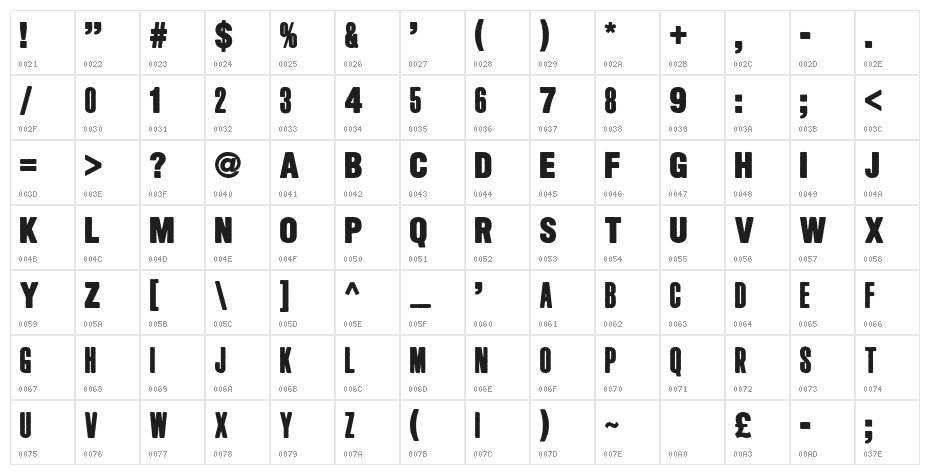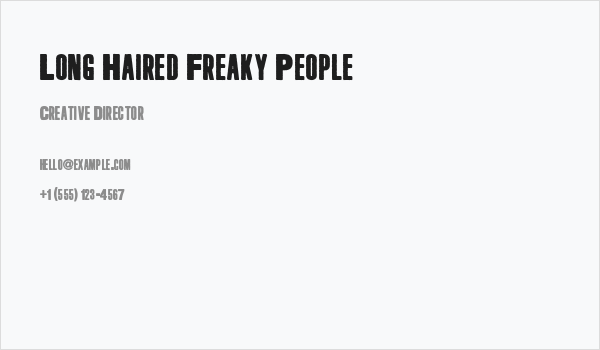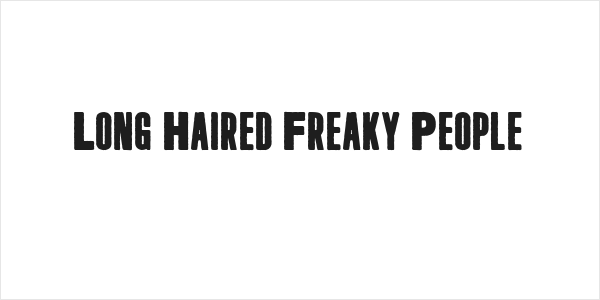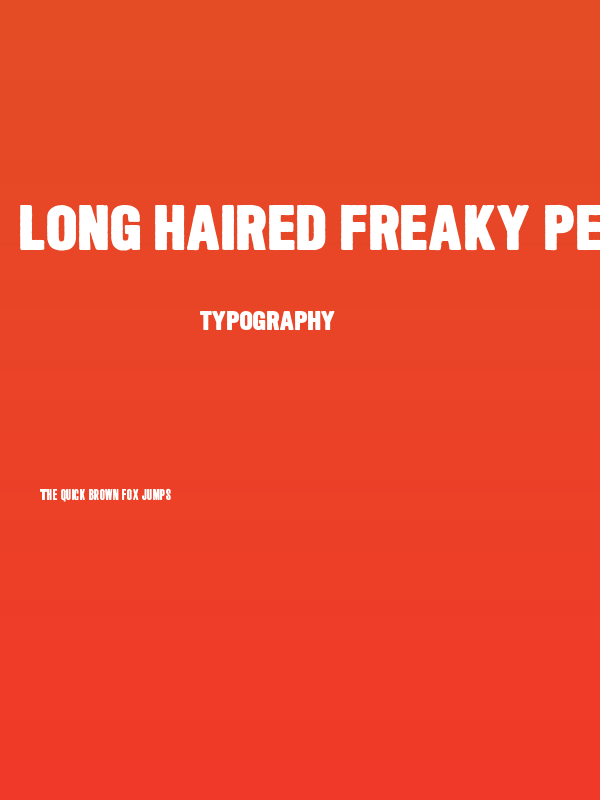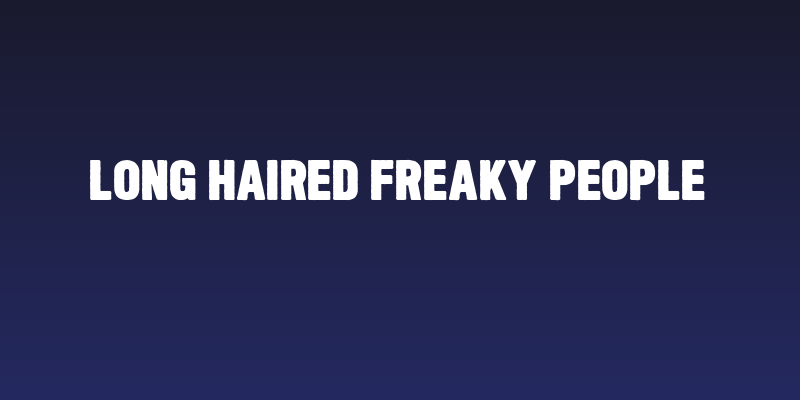
Long Haired Freaky People Font
Long Haired Freaky People Description
This font features a bold and impactful design with a strong presence, making it ideal for attention-grabbing headlines and titles. The characters are thick and robust, with a slightly distressed texture that adds a vintage or grunge feel. The uppercase letters are uniform in height, while the lowercase letters maintain a consistent style, complementing the uppercase set. Numbers and special characters are equally bold, ensuring they stand out in any design. The overall appearance is rugged and assertive, perfect for projects that require a strong visual statement.
| Proposed Projects | Ideal for posters, album covers, branding, and any design needing a bold, vintage touch. |